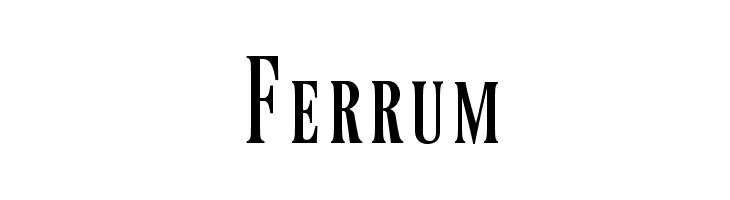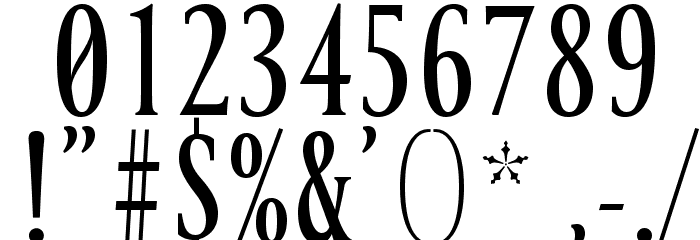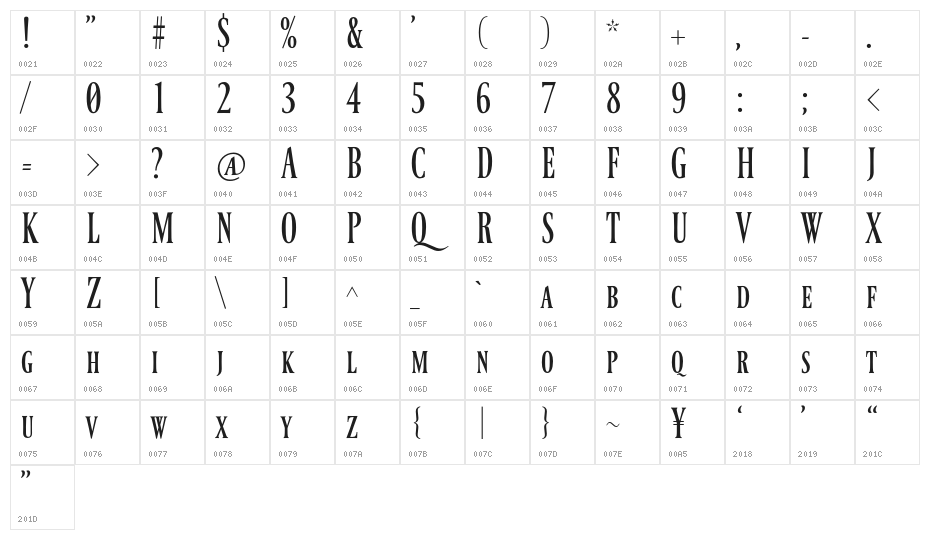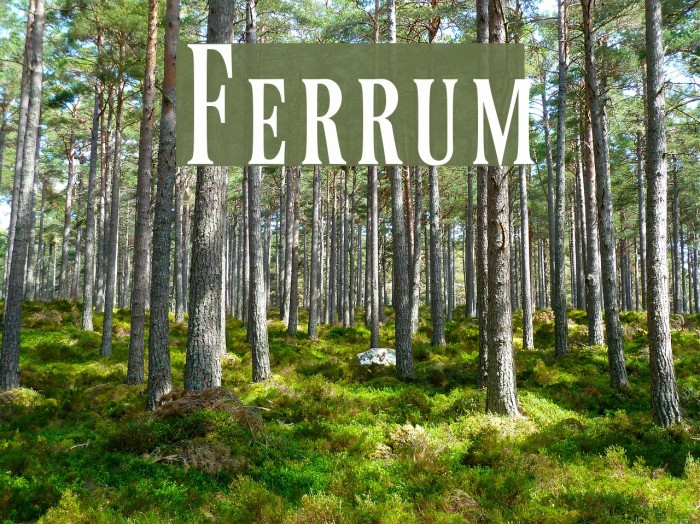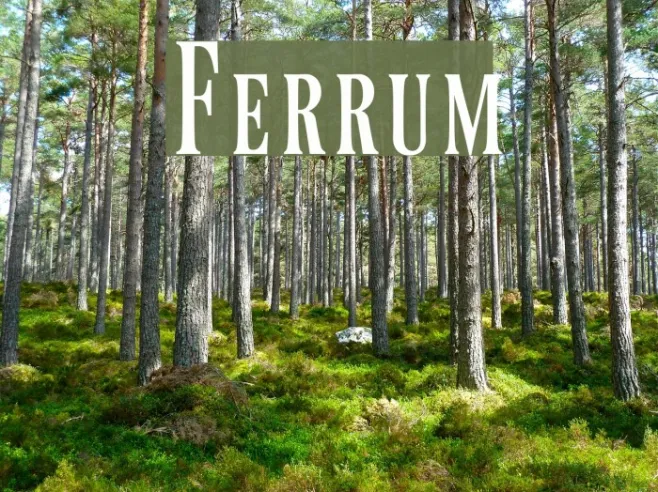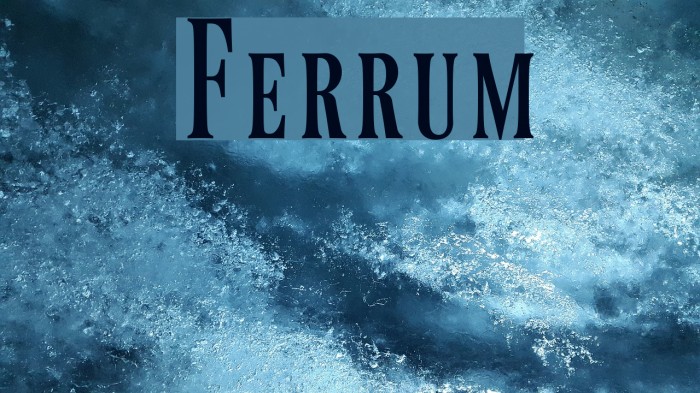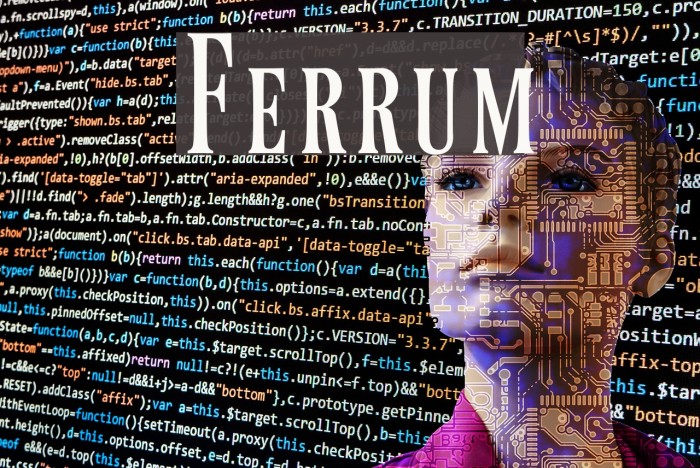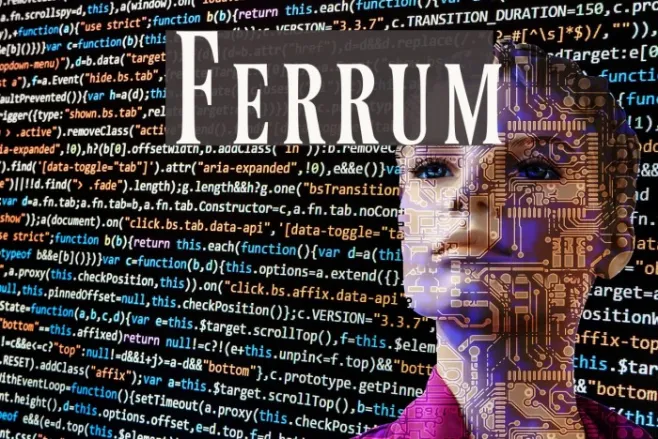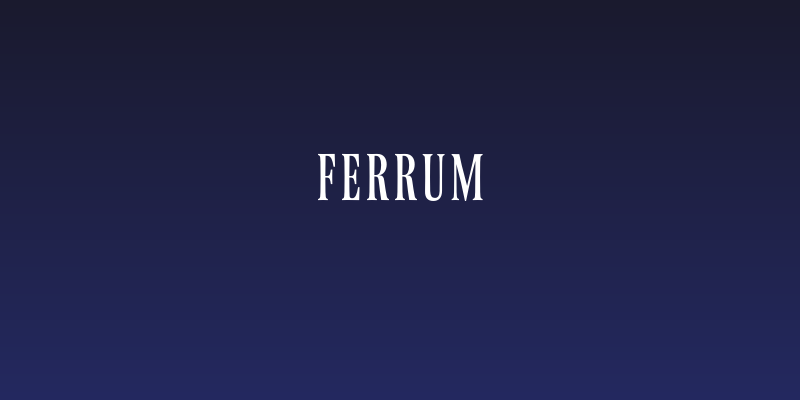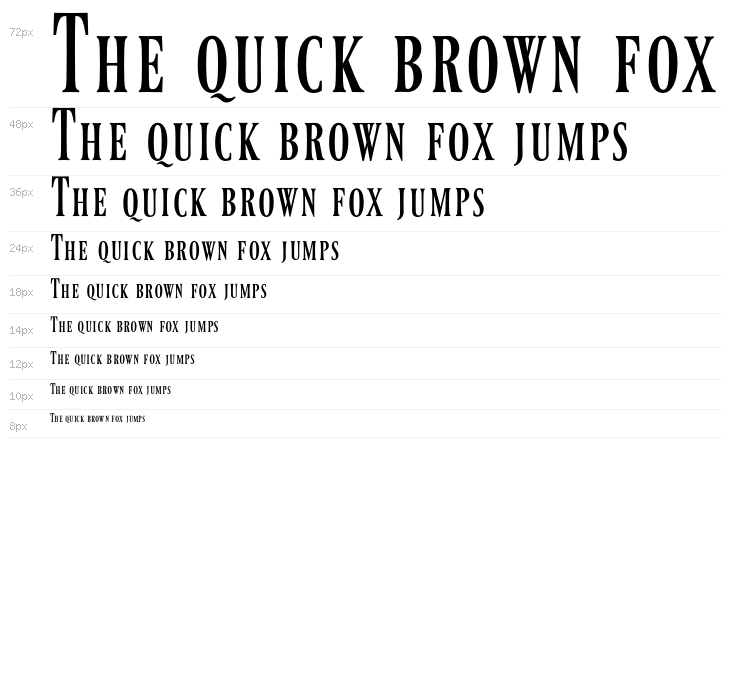
Ferrum Font
Ferrum Description
This font features a classic serif style with a modern twist, characterized by its tall, narrow letters and high contrast between thick and thin strokes. The serifs are sharp and pronounced, adding a touch of elegance and sophistication. The uppercase letters are particularly striking, with a vertical emphasis that commands attention. The lowercase letters maintain the same refined aesthetic, ensuring consistency across the typeface. Numbers and special characters are designed with the same attention to detail, making them suitable for a variety of uses. The overall appearance is both timeless and contemporary, making it versatile for different design needs.
| Use Case | Headlines, Logos, Editorial design |
| Proposed Projects | Ideal for editorial design, book covers, luxury branding, and formal invitations. |